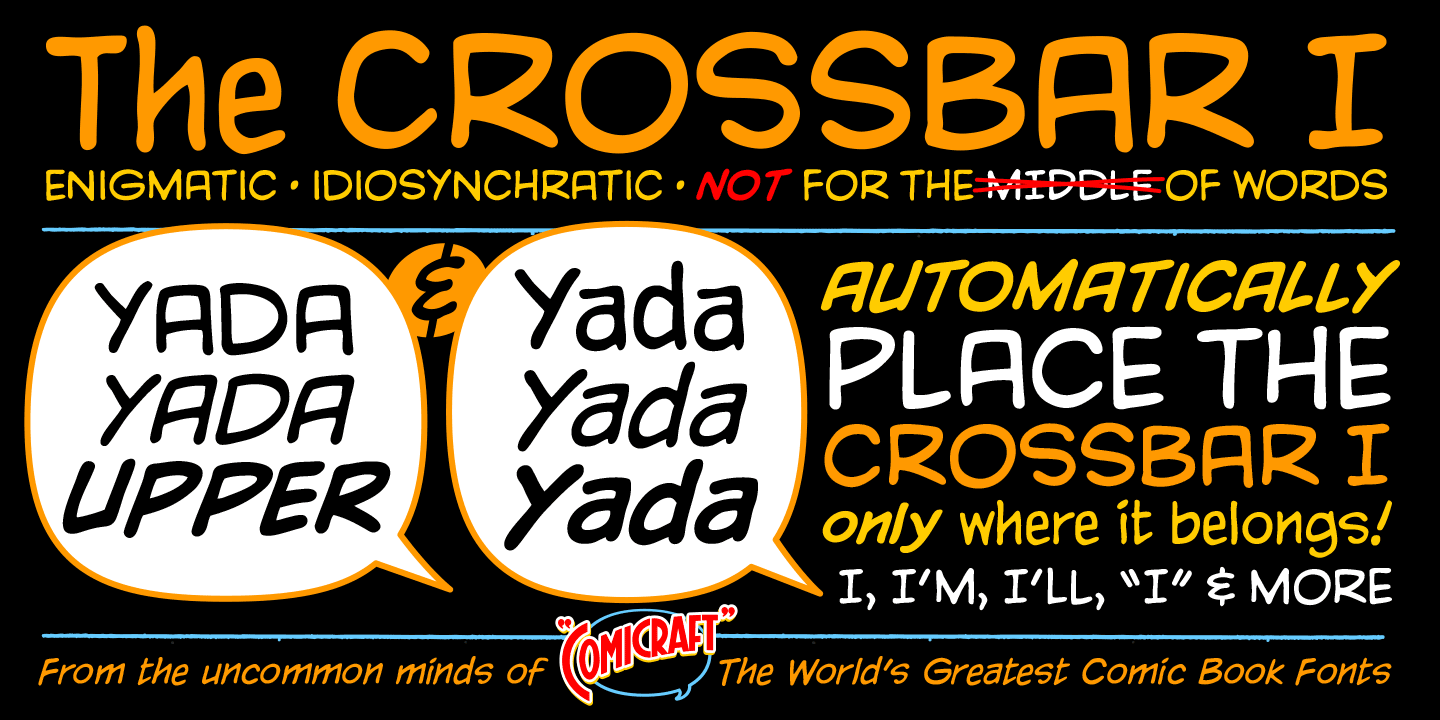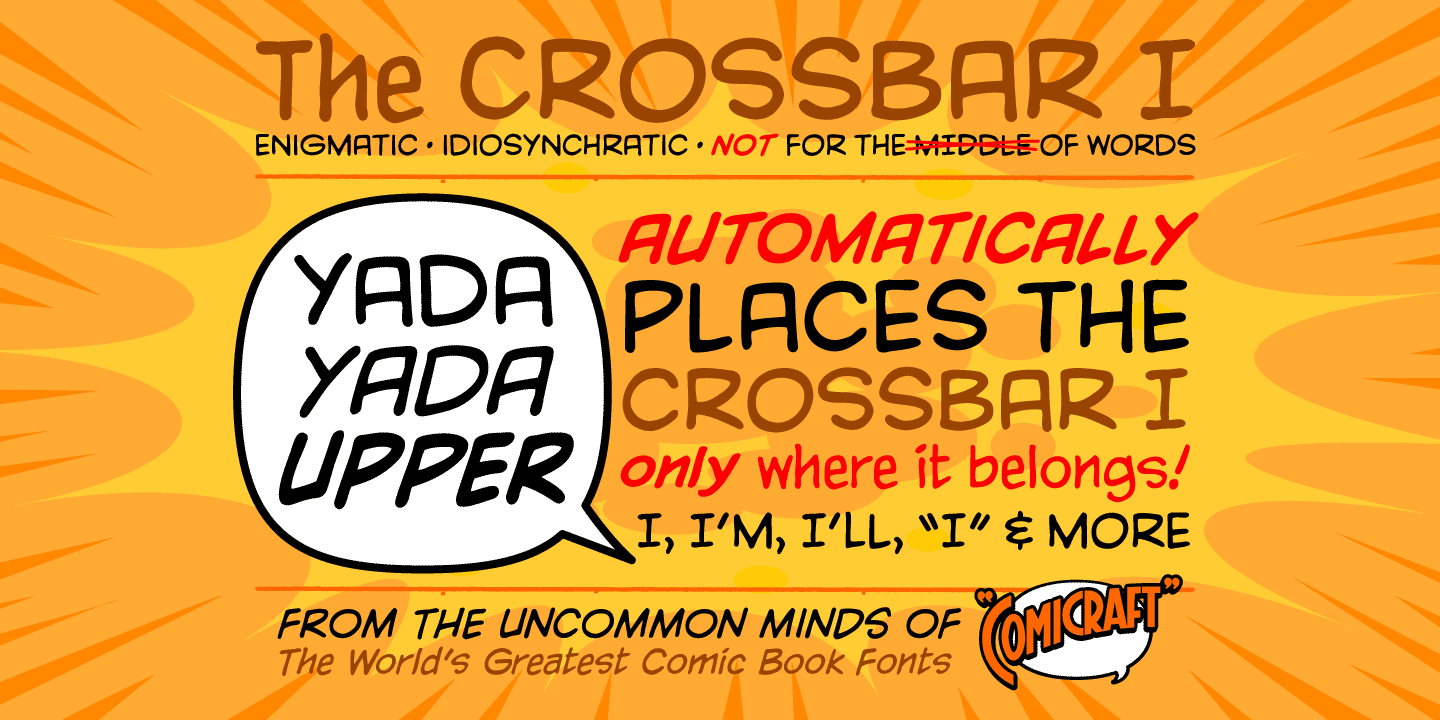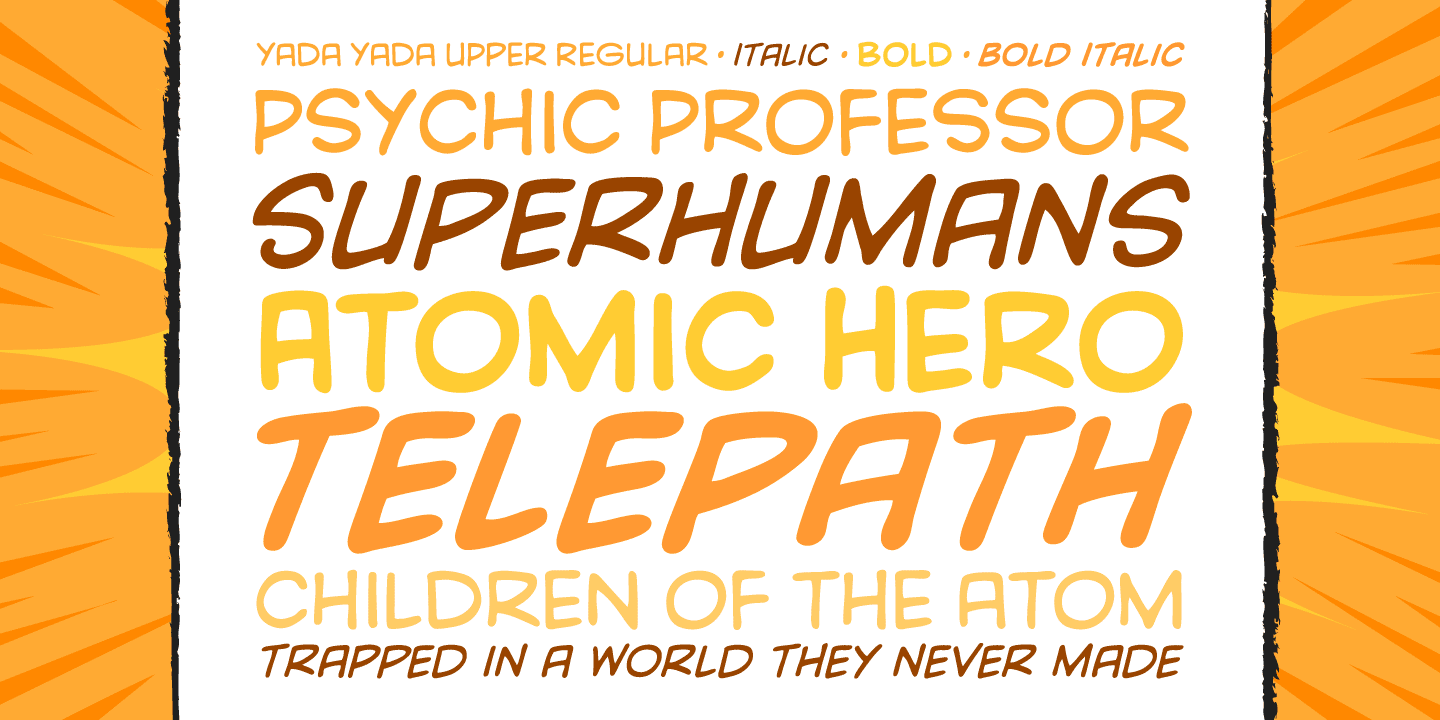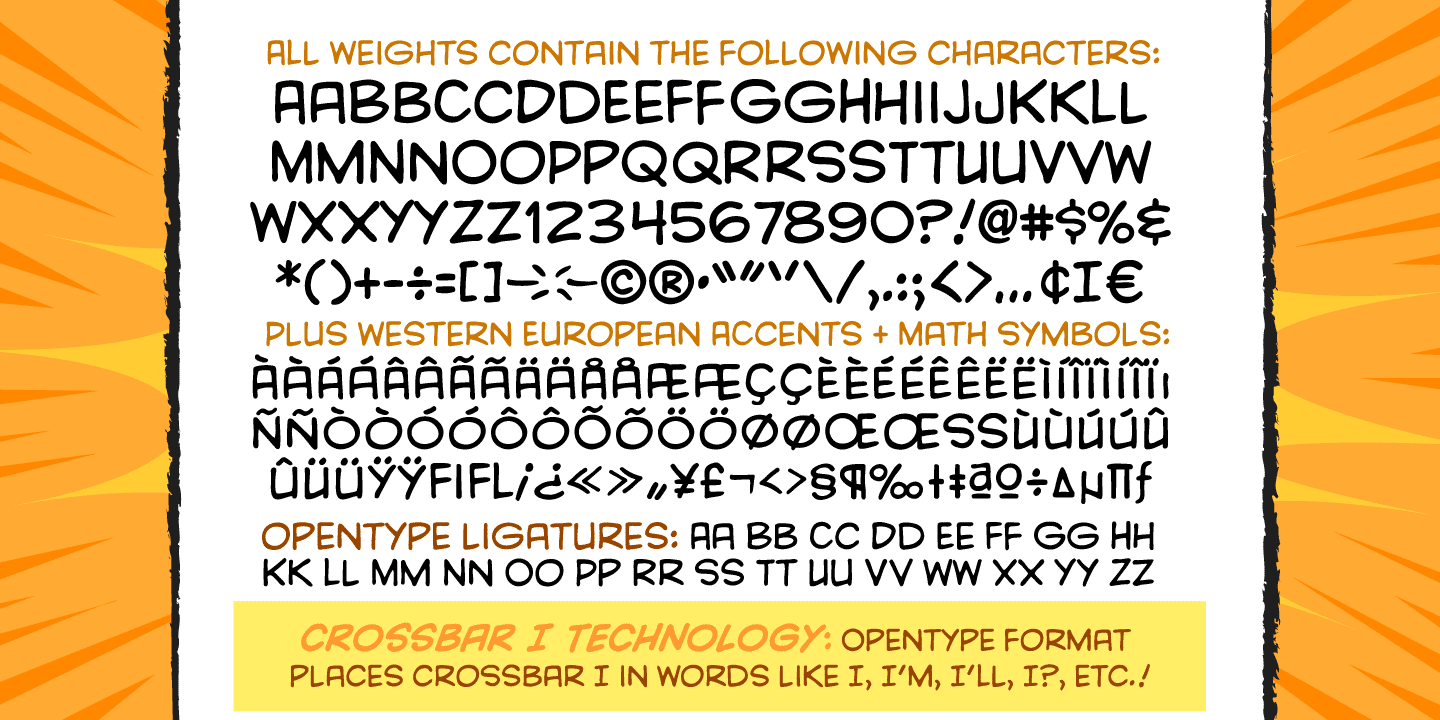
Yada Yada Upper
Buy NowTrapped on a disk they never made… We recently unearthed the All-Uppercase version of our popular YadaYadaYada font family, originally created for the now-legendary X-MEN: AGE OF APOCALYPSE crossover!
Brought from the perilous past into the fearless future, YADA YADA UPPER contains alternate versions of each uppercase letter, and is our very first font to automatically place the CROSSBAR I in exactly the right spots!